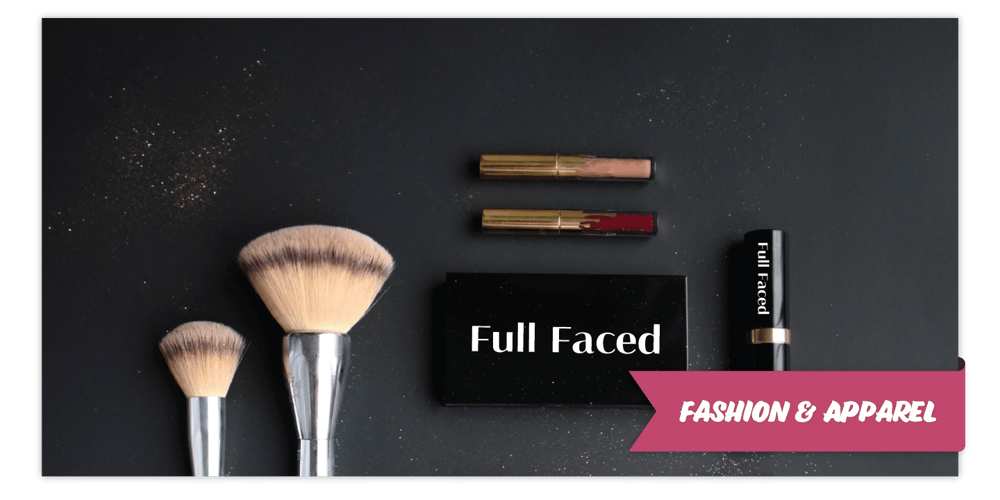
Seaside Font Family was designed by Andrij Shevchenko and published by AndrijType. Seaside contains 8 styles and family package options. This contrast grotesque works well in text sizes and in large ones. Here are two sub-families: contrast and most contrast Display. Ideal companion for Osnova type family.